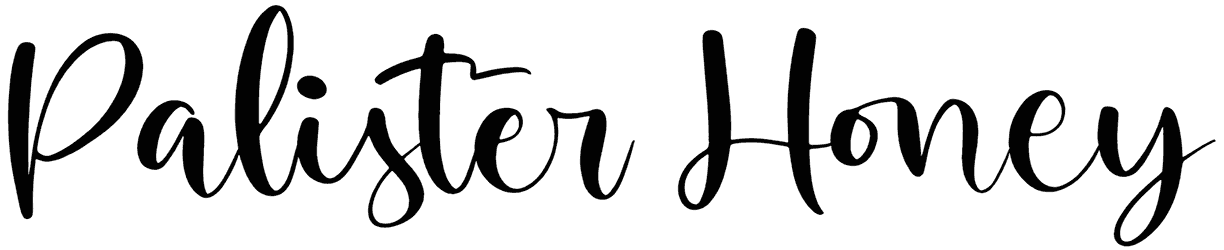
Palister Honey Font
If you need more time to find the best font and want to use a different typeface in your writing, downloading Palister Honey will be very easy. This calligraphy font is a great way to keep lettering consistently on your greeting cards, invitations, and personal projects.
The playful appearance and twists in both styles of this script font make it ideal for use on happy occasions. We suggest that you keep it in your collection for one of the upcoming celebrations.